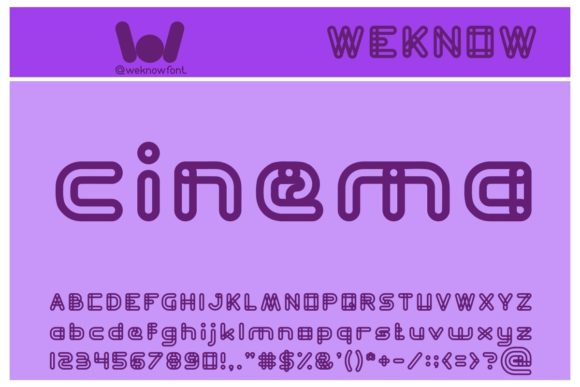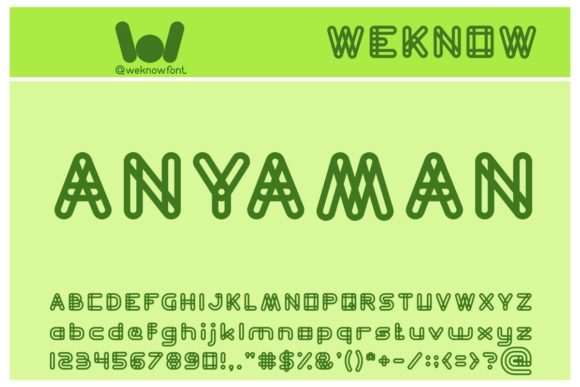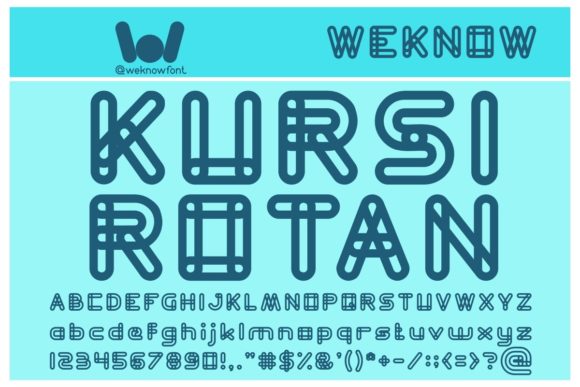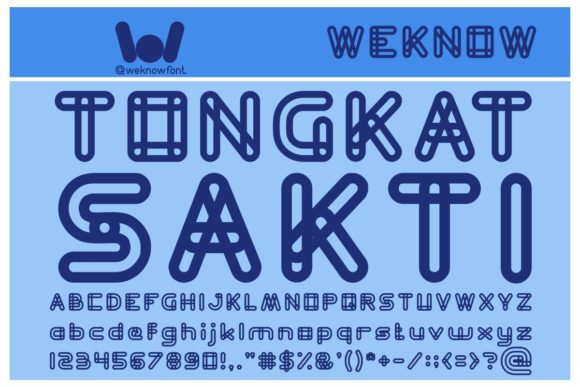
Bamboo Shoots Font: Elevate Your Designs with a Unique and Modern Display Font
In the world of typography, fonts play a crucial role in conveying messages, expressing emotions, and creating visual identities. For designers and crafters, finding the perfect font can be a daunting task, especially when looking for something that stands out from the crowd. That’s where Bamboo Shoots Font comes in – a fancy and modern display font that’s sure to elevate your designs to the next level.
What Makes Bamboo Shoots Font Special?
Bamboo Shoots Font is a one-of-a-kind typeface that boasts unique characters and a slightly geometric feel. This distinctive combination makes it an ideal choice for a wide range of design projects, from logos and branding to comics, cartoons, social media graphics, quotes, book covers, and more. The font’s modern and edgy vibe is perfect for designers who want to add a touch of sophistication and elegance to their work.
Key Features of Bamboo Shoots Font
- Unique Characters: Bamboo Shoots Font features distinctive characters that set it apart from other fonts. Each letter is carefully crafted to create a visually appealing and cohesive look.
- Geometric Feel: The font’s slightly geometric feel adds a touch of modernity and sophistication, making it perfect for designs that require a bit of edge.
- Versatility: Bamboo Shoots Font is incredibly versatile and can be used for a wide range of design projects, from digital graphics to print materials.
- Ease of Use: The font is easy to read and works well in various sizes, making it perfect for both large and small design projects.
Bamboo Shoots Font is a dream come true for designers and crafters who want to add a touch of personality to their work. Whether you’re creating a logo, branding materials, or social media graphics, this font is sure to make your designs stand out. Its unique characters and geometric feel make it perfect for:
- Logos and Branding: Create a memorable and recognizable brand identity with Bamboo Shoots Font.
- Comics and Cartoons: Add a touch of fun and playfulness to your comics and cartoons with this font’s unique characters.
- Social Media Graphics: Elevate your social media graphics with a modern and edgy font that’s sure to grab attention.
- Quotes and Book Covers: Add a touch of sophistication and elegance to your quotes and book covers with Bamboo Shoots Font.
Bamboo Shoots Font is a game-changer for designers and crafters who want to elevate their designs with a unique and modern display font. With its distinctive characters and geometric feel, this font is perfect for a wide range of design projects. Whether you’re creating logos, branding materials, or social media graphics, Bamboo Shoots Font is sure to make your designs stand out from the crowd.